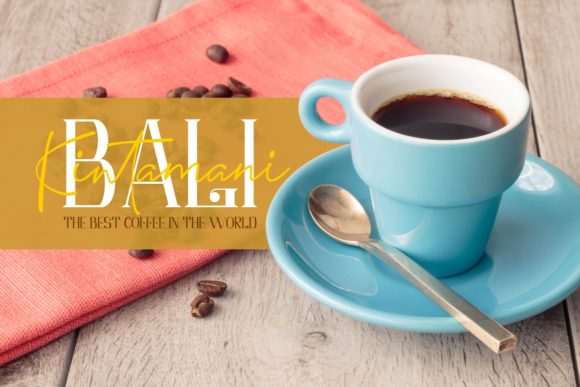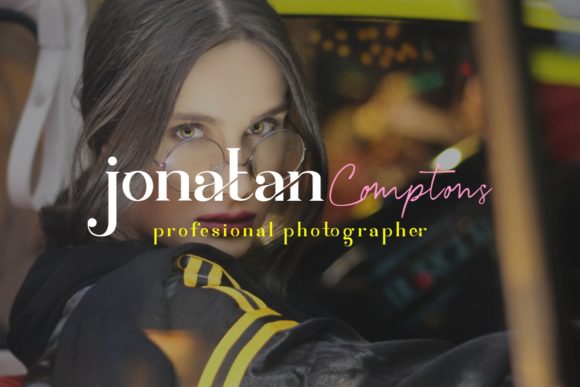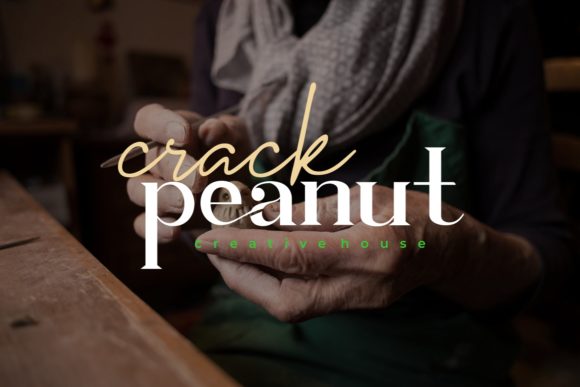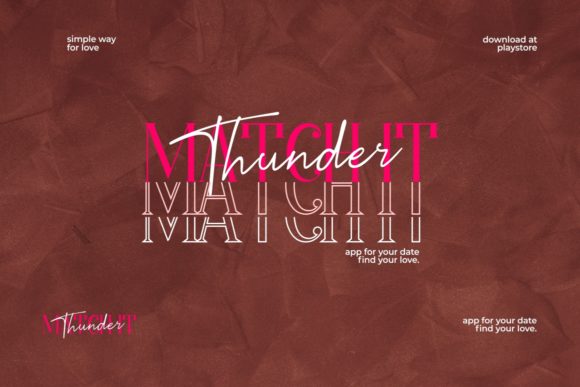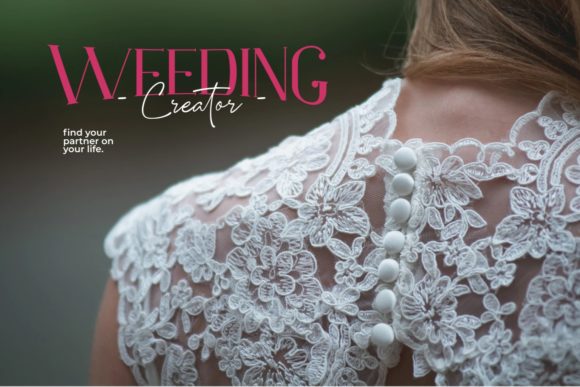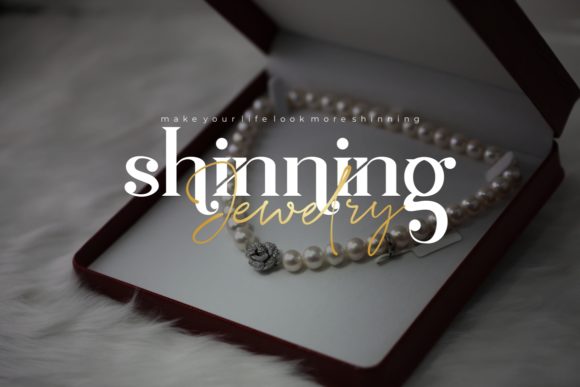
Introduction to Safiar Font
Have you ever stared at a blank page, waiting for that perfect spark to ignite your creativity? For designers, this moment is all too familiar. The blank canvas, a blank slate, begging for a dash of personality. That’s where the Safiar Font comes in – a game-changing script font that adds a pinch of magic to any design project.
This high-quality design resource is more than just a pretty face; it’s a powerhouse that can elevate your creative project from meh to mesmerizing. With its bold and playful charm, Safiar Font is the perfect addition to any design arsenal. Whether you’re working on a free download or a paid project, this font is sure to leave a lasting impression.
Key Features of Safiar Font
- Unique, modern design with a transparent background, perfect for background or overlay use
- Designed to be highly legible and versatile, making it suitable for a wide range of applications
Honest Review: Safiar Font
As a designer, I’m always on the lookout for high-quality design resources to elevate my creative projects. Recently, I stumbled upon the Safiar Font, and I’m excited to share my thoughts on this free download.
- ✨ The Safiar Font features a beautiful, modern design with a transparent background, making it perfect for background usage or overlaying text.
- ✨ The font is highly customizable, allowing me to adjust the size, color, and style to suit my design needs.
- ⚠️ The font is not suitable for body text, as it can be difficult to read at smaller font sizes.
- ⚠️ The font lacks a bold or italic version, which can limit its versatility.
Overall, I’m impressed with the Safiar Font’s design and versatility. While it may have some limitations, it’s a great addition to any designer’s toolkit, especially for creative projects that require a modern and sleek aesthetic.
Safiar Font
The Safiar Font is a versatile and high-quality design resource ideal for creative projects. Its elegant and modern design makes it a perfect addition to any design project.
Tips for Getting the Most Out of Safiar Font
To get the most out of the Safiar Font, use it with a transparent background to create a modern and sleek design. You can also pair it with other high-quality design resources to create a unique and creative project.
The Safiar Font is ideal for various design projects, including:
- Posters and advertisements
- Web design and digital marketing
Is the Safiar Font suitable for print or digital use?
The Safiar Font is designed to be versatile and suitable for both print and digital use. Its clean lines and modern design make it perfect for use in digital applications, such as websites, social media, and mobile apps. For print use, the font is also suitable for use in business cards, brochures, and other marketing materials.